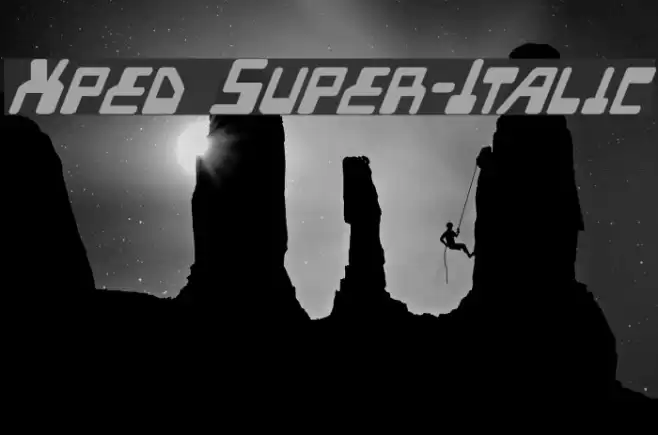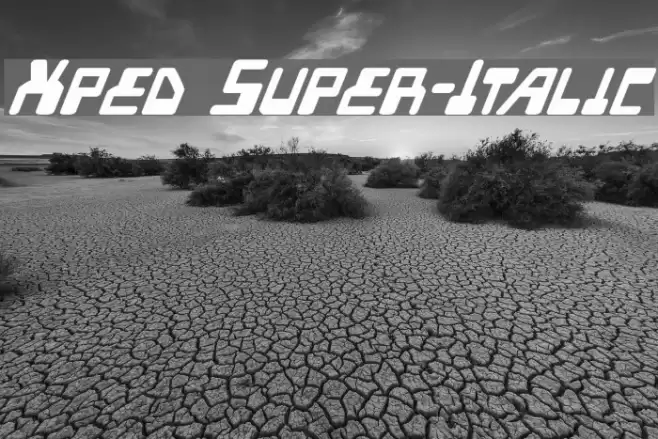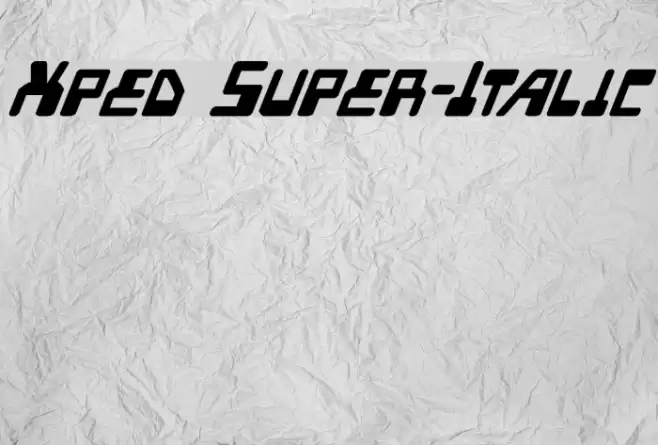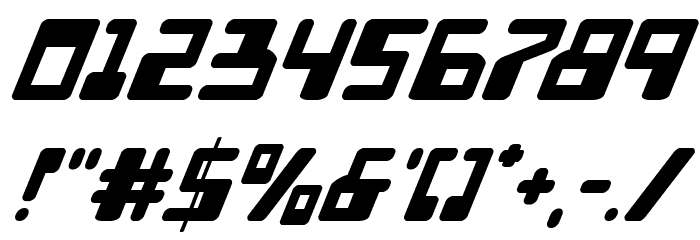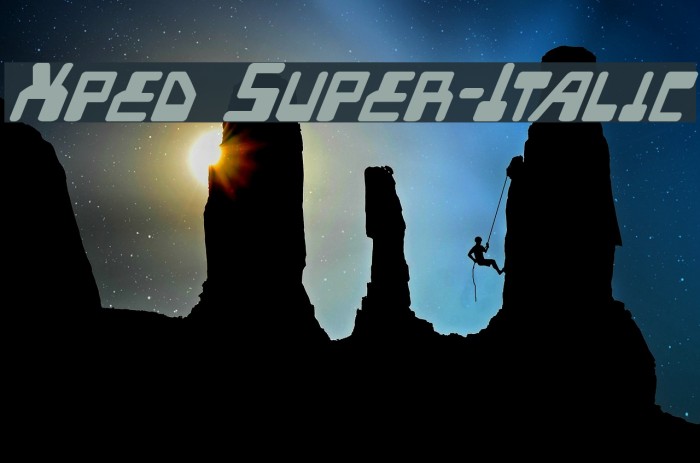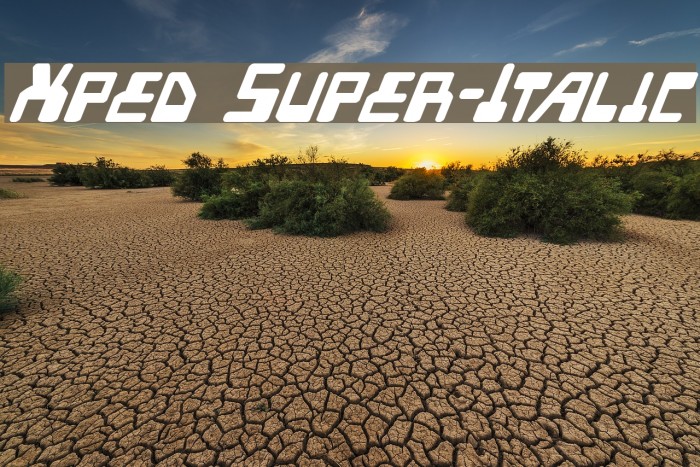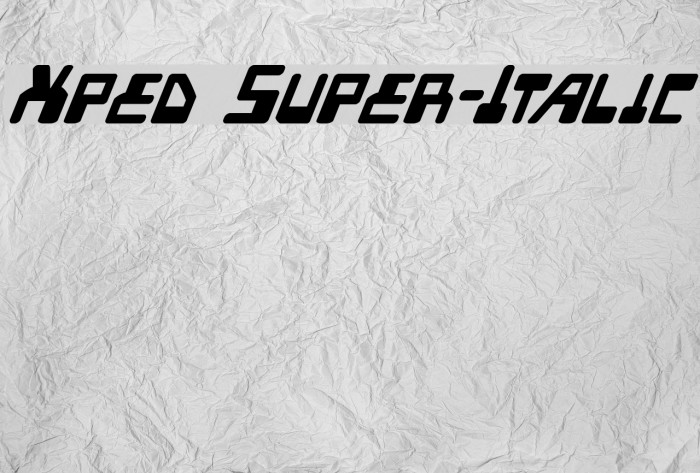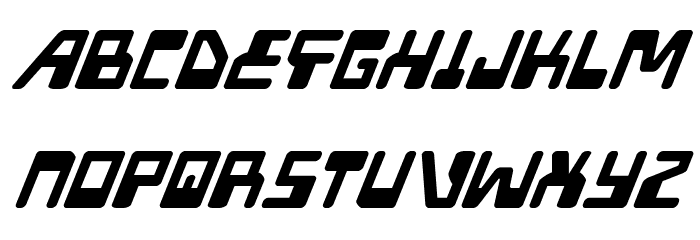
Xped Super-Italic Font
Xped Super-Italic Description
This font features a bold, italicized style with a futuristic and dynamic appearance. The characters are slanted, giving a sense of motion and speed. The strokes are thick and consistent, providing a strong visual impact. The design includes sharp angles and geometric shapes, contributing to its modern and edgy look. The uppercase and lowercase letters maintain a uniform style, while the numerals and special characters complement the overall aesthetic. This font is ideal for projects that require a bold statement and a contemporary feel.
A bold, italicized font with a futuristic and dynamic style from Uncategorized fonts.
- Proposed Projects: Ideal for branding, sports team logos, video game titles, and tech-related designs.